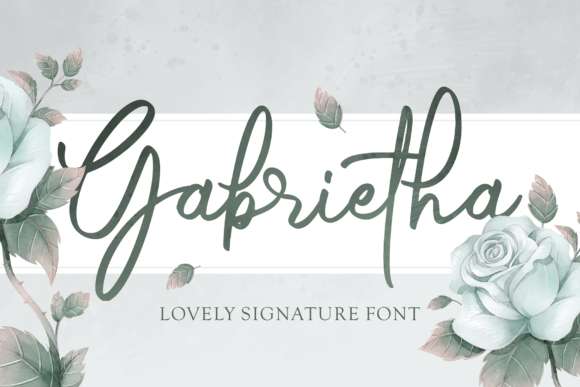
Dive into the world of elegance and authenticity with Gabrietha Font, a breathtaking script font crafted by the talented Figuree Studio. Gabrietha's enchanting curves and delicate flourishes will transform your designs into masterpieces, adding a touch of timeless beauty and sophistication.
Unleash your creativity and let Gabrietha's allure elevate your next project. Whether you're a seasoned designer or just starting your journey, this font will captivate your audience with its undeniable charm. Its versatility knows no bounds, seamlessly adapting to a wide range of design styles, from whimsical invitations to elegant branding.
With Gabrietha, the possibilities are endless. Immerse yourself in a world of romance as you craft handwritten notes, heartfelt letters, or captivating social media posts. Design eye-catching logos, business cards, and brochures that leave a lasting impression. Let Gabrietha's intricate details add a touch of luxury to your packaging designs or create stunning artwork that will draw eyes wherever it's displayed.
Gabrietha's essence lies in its ability to evoke emotion and create a personal connection with your audience. Its graceful strokes and sweeping flourishes convey a sense of authenticity and warmth that resonates with hearts. Let Gabrietha be your creative companion as you weave tales of love, friendship, and adventure through your designs.